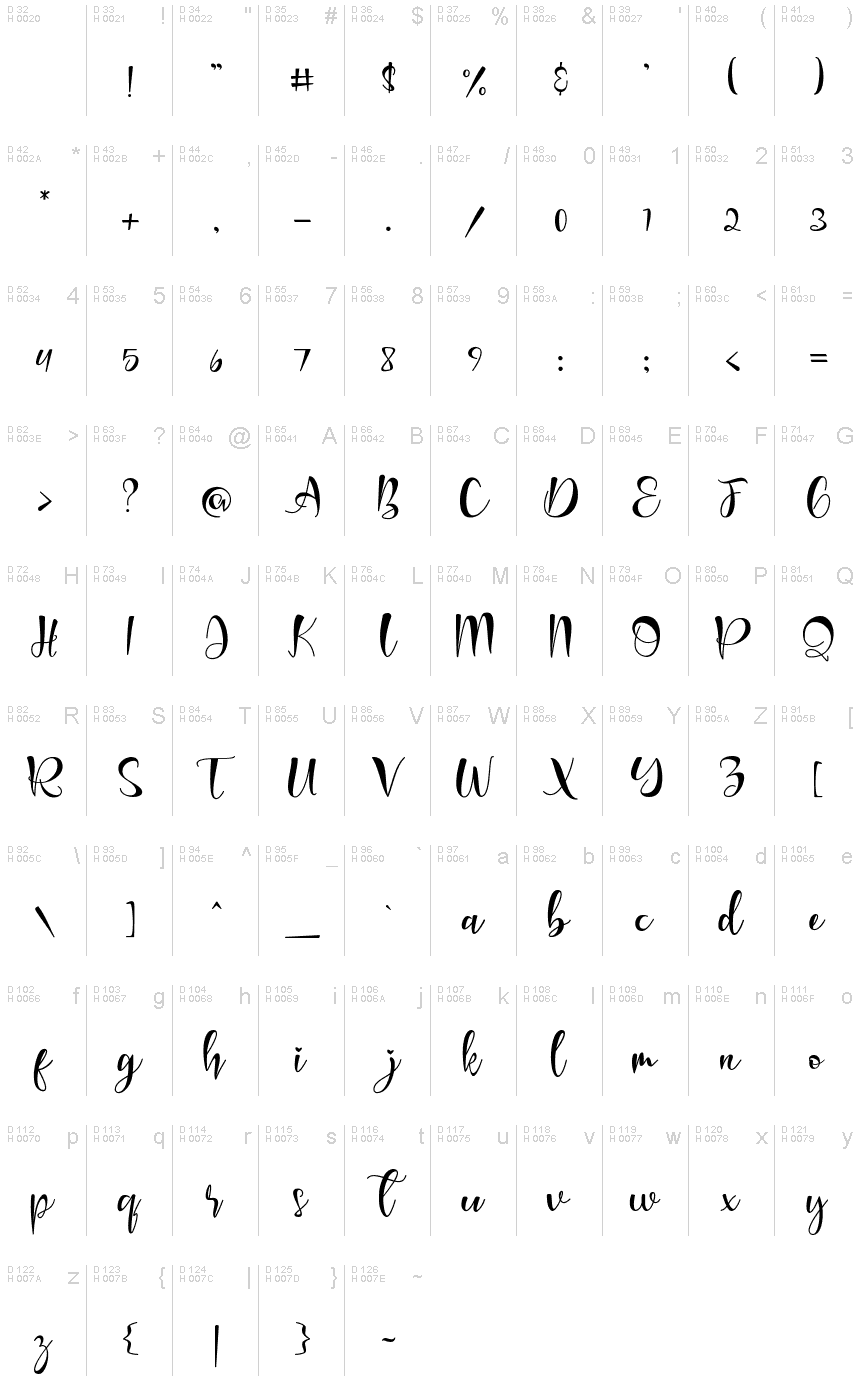
Almonti
Almonti, the latest modern calligraphy font from Infontree, is perfect for projects requiring a touch of elegance and sophistication. Its semi-light weight adds just enough delicacy to make your designs stand out without being too overpowering. From wedding invitations to high-end fashion branding, Almonti's flowing curves and graceful strokes will elevate any project to a new level of class. Its versatility makes it suitable for both print and digital media, while its unique style ensures that your work will stand out from the rest. Add a touch of luxury with Almonti – the perfect choice for your next design project.